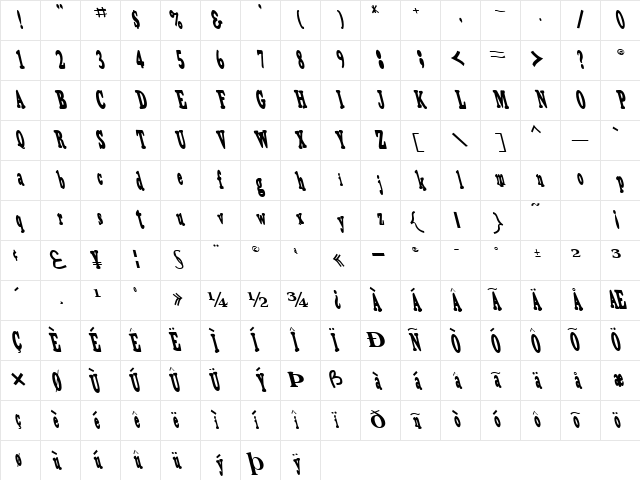
ShortMemoryNew Regular
ShortMemoryNew Family
Design Context for ShortMemoryNew
ShortMemoryNew is a composed and adaptable typeface that performs quietly and consistently across a wide range of design contexts.